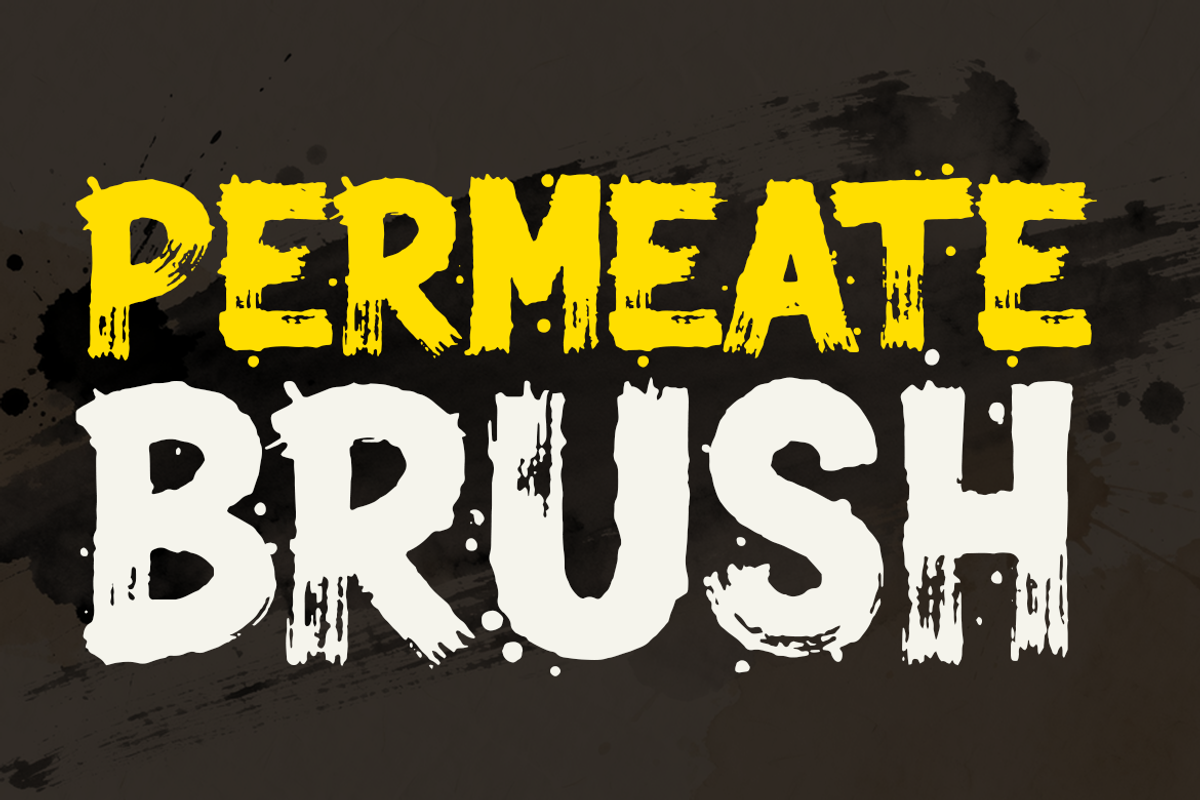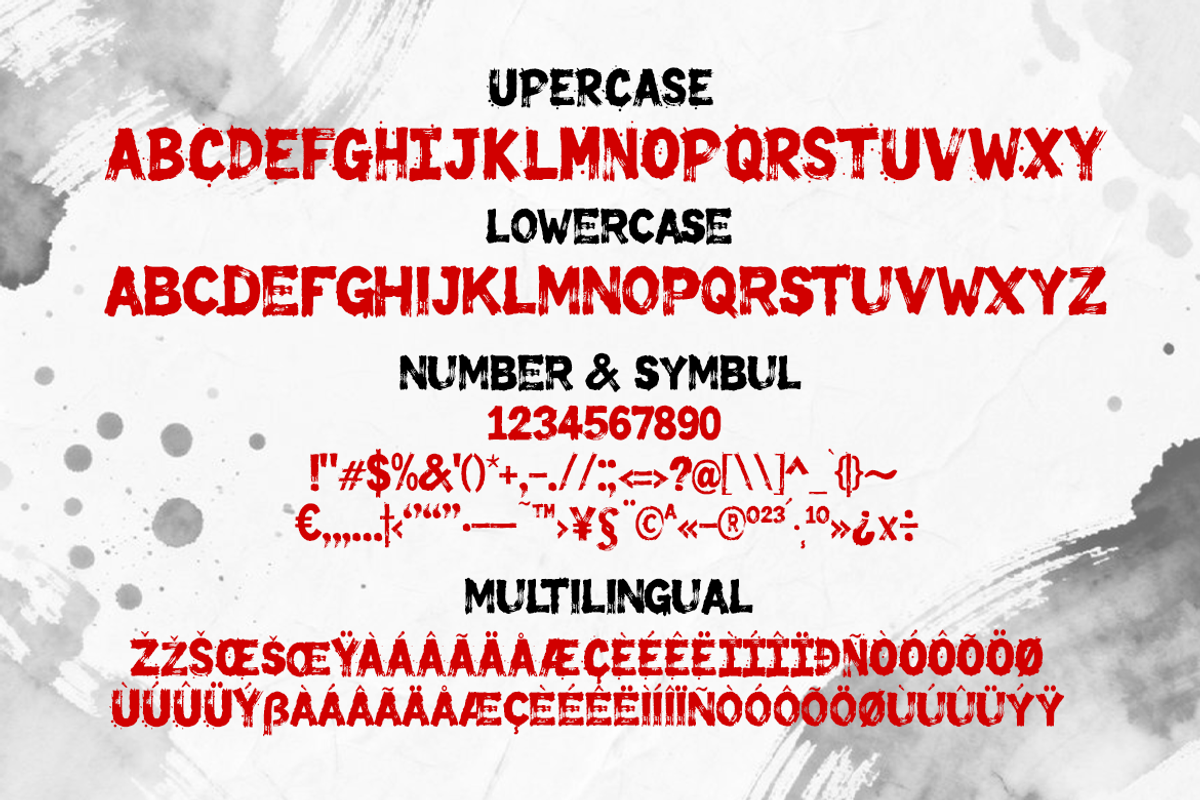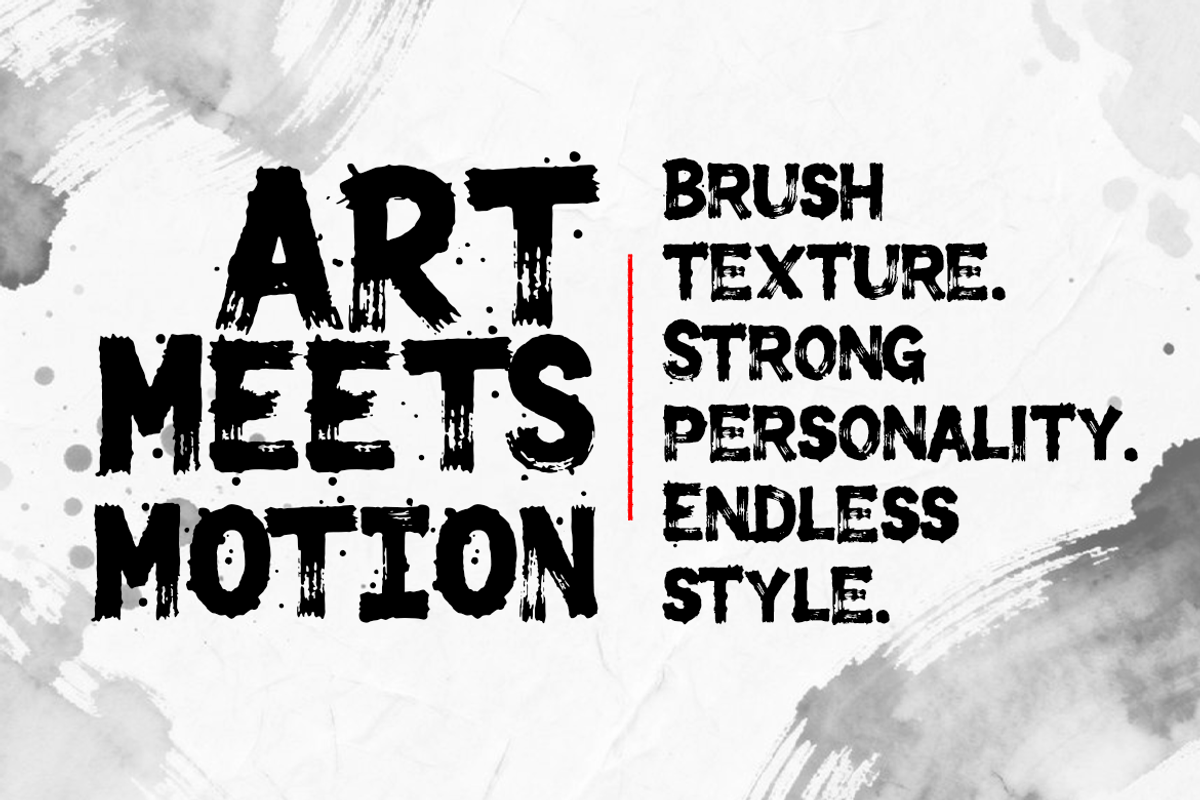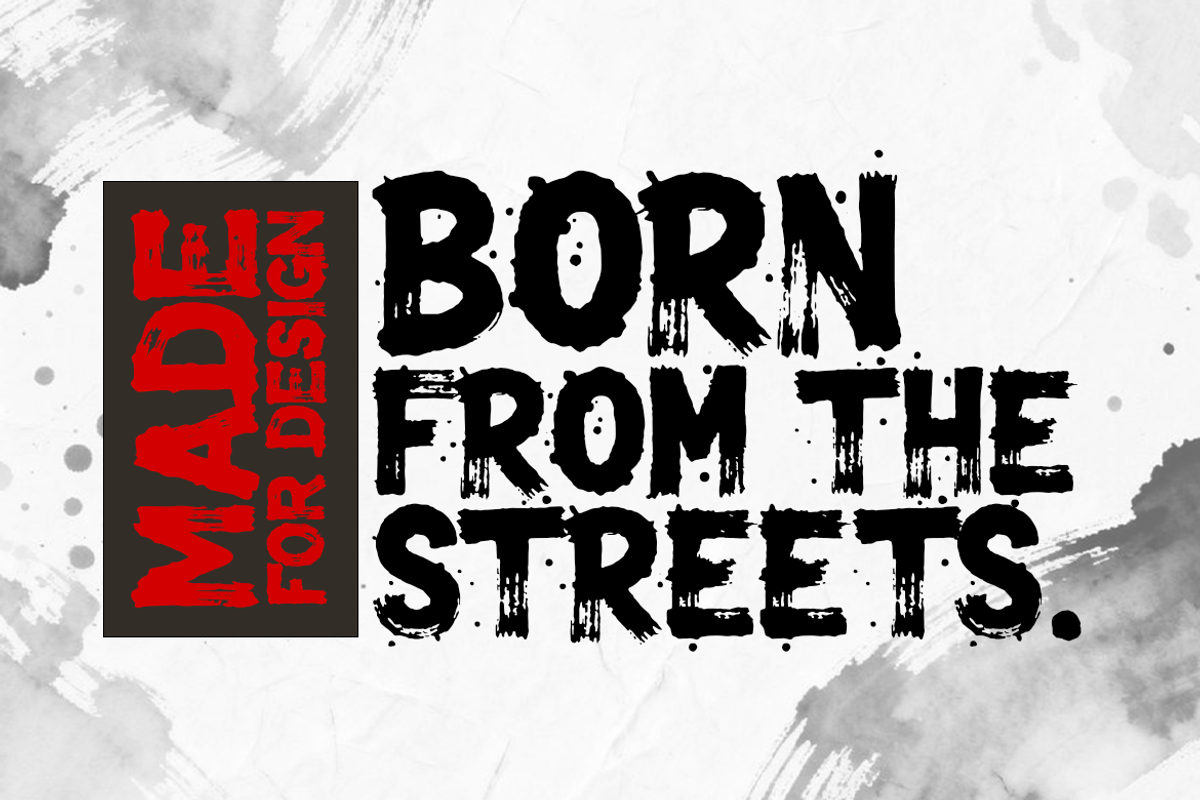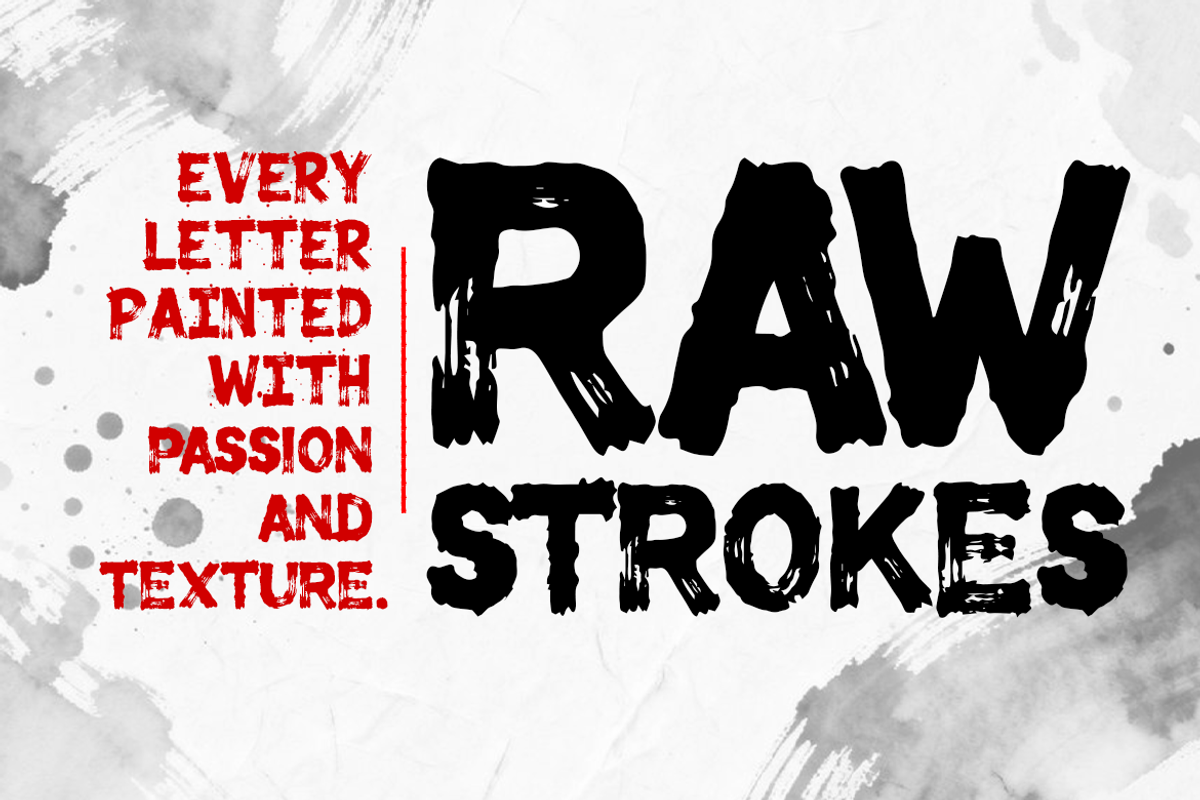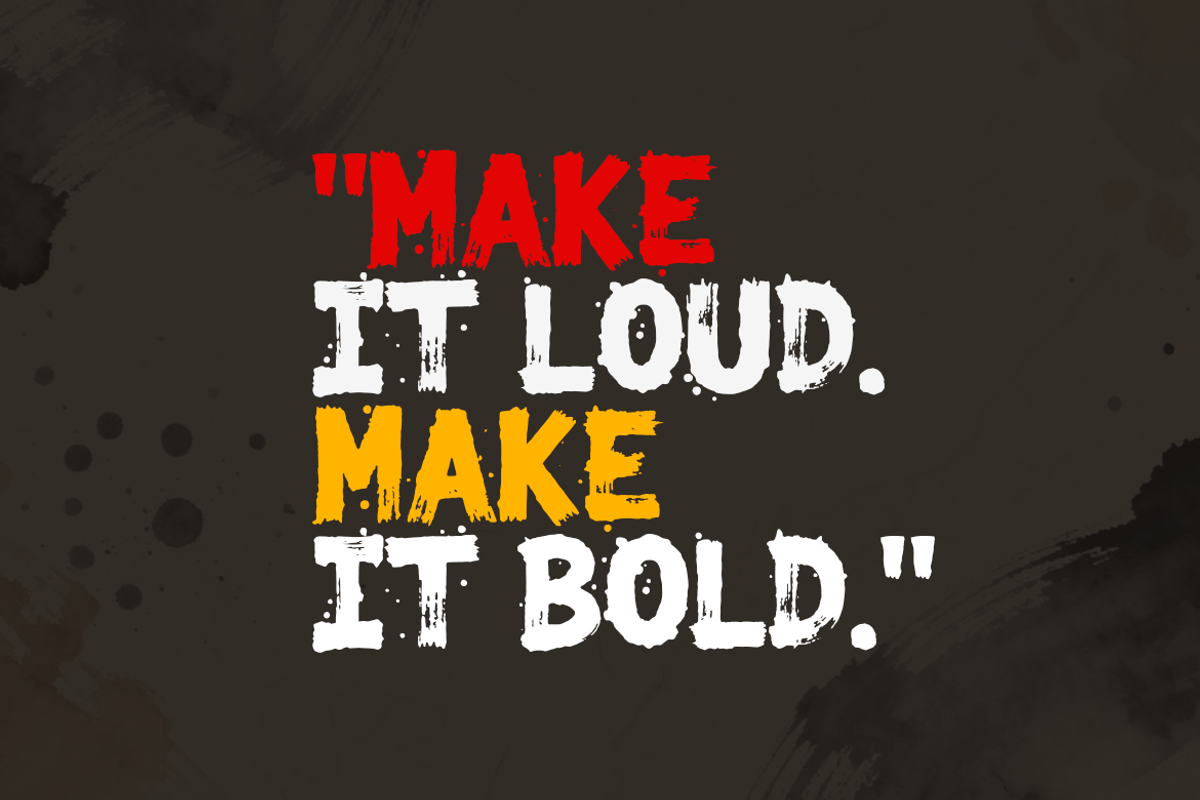
Permeate Brush is a brush display font that brings raw energy and artistic expression to every stroke. Designed with bold, hand-painted textures, it captures a sense of freedom, creativity, and motion, making it perfect for projects that demand a striking and emotional visual presence.
Perfect for: 🎨 Posters and album covers 🖋️ Creative branding and artistic logos 📣 Headlines, quotes, and social media graphics
Let every brushstroke of the Permeate Brush infuse your design with passion, power, and personality.